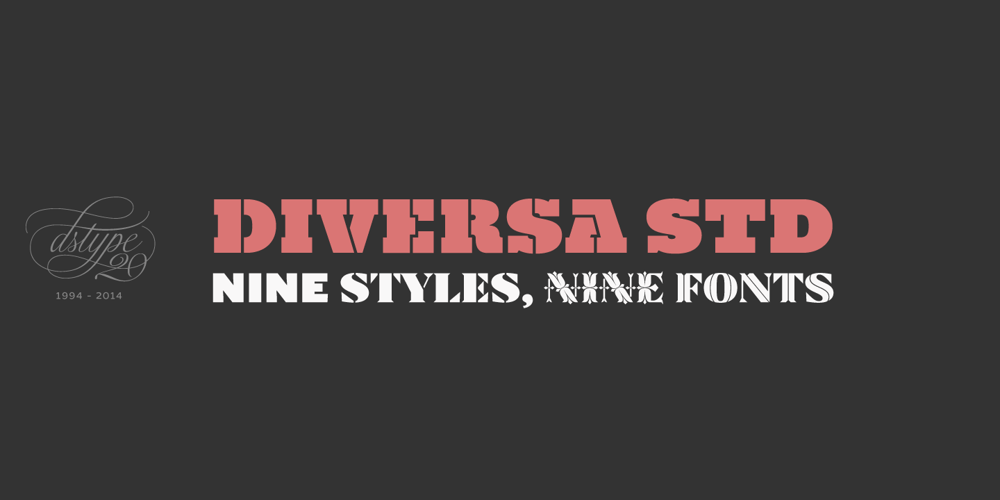
Diversa Std
Diversa Std font
Diversa Std Font Family was designed by Dino dos Santos, Pedro Leal and published by Monotype. Diversa Std contains 9 styles and family package options. DSType proudly presents Diversa Std, the same system as Diversa, but with separate styles: Serif, Serif Stencil, Inline, Soft Serif, Sans, Sans Stencil, Slab, Slab Stencil and Baroque. Diversa Std: Because uniformity still sucks!